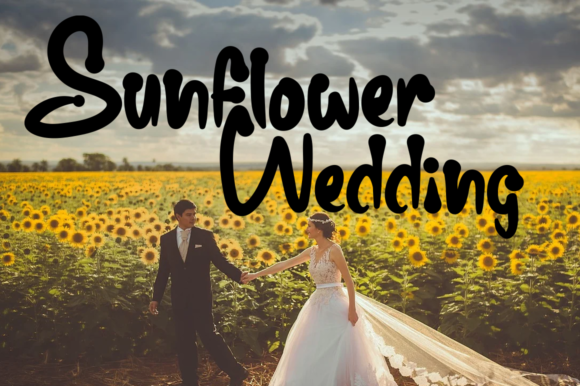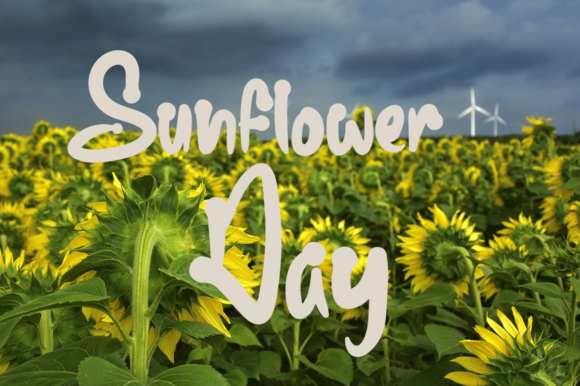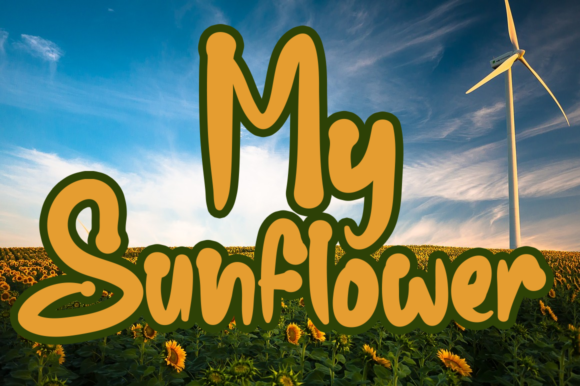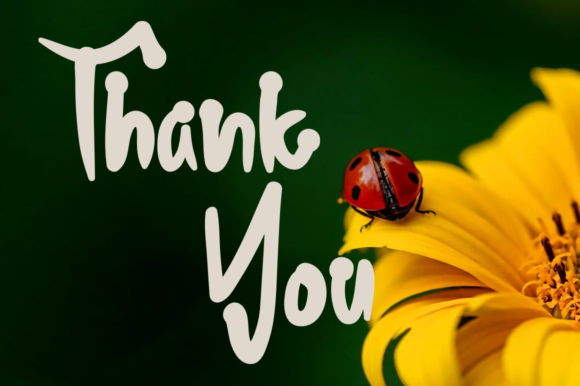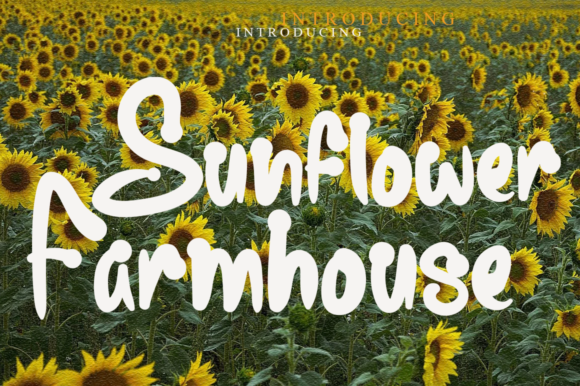
Sunflower Farmhouse Font
About Sunflower Farmhouse Font
Sunflower Farmhouse is a relaxed and fresh handwritten font. It is defined by smooth curves and is perfect for fashion branding or editorial designs. Add it confidently to your projects, and you will love the results.